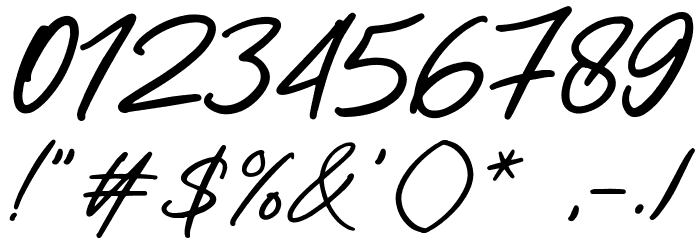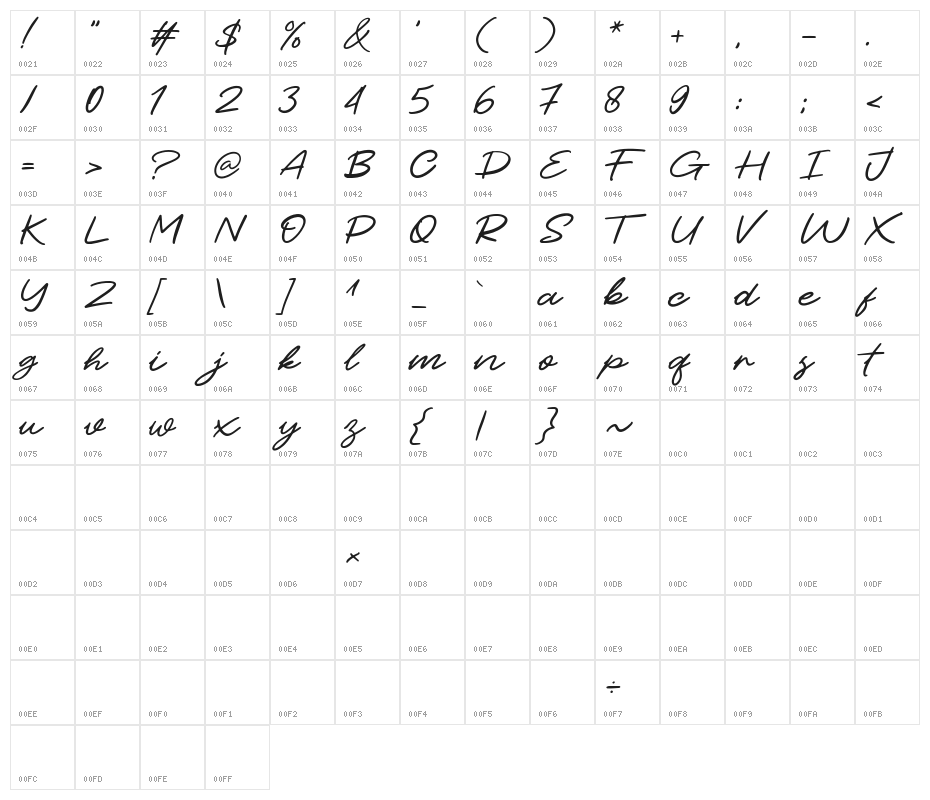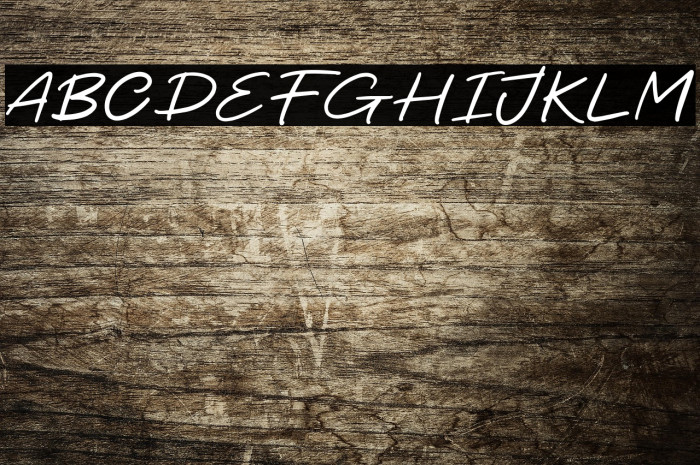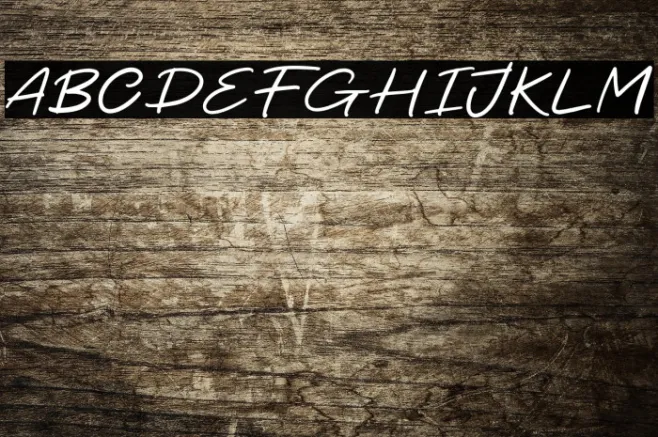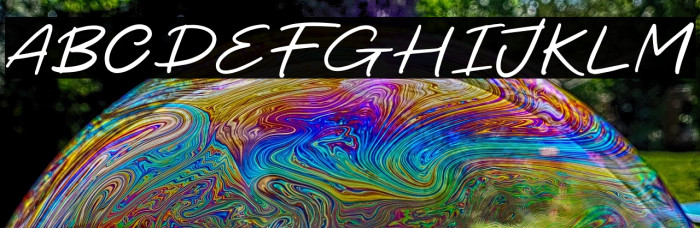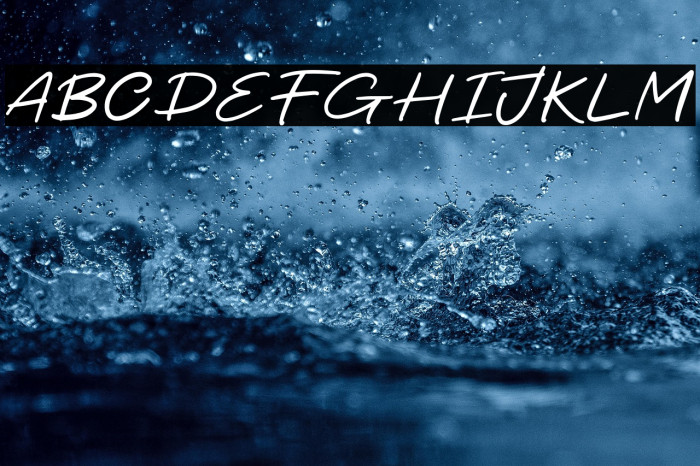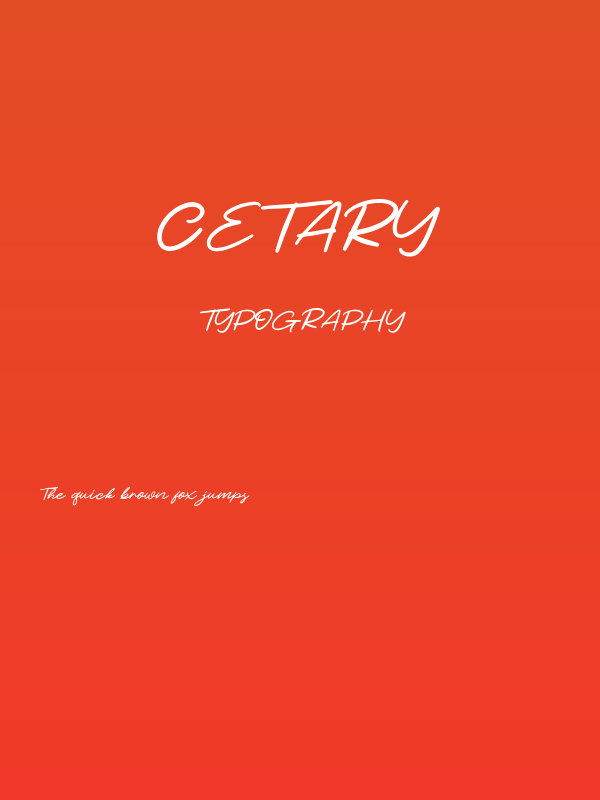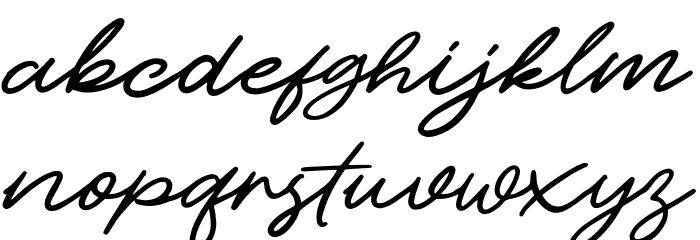
Cetary Font
Cetary Description
This font exudes a casual, handwritten style with a smooth, flowing script that mimics natural handwriting. The characters are slightly slanted, adding a dynamic and personal touch to the text. The uppercase letters maintain a consistent height, while the lowercase letters have a more varied baseline, enhancing the organic feel. The numerals are clear and legible, maintaining the same handwritten aesthetic. Special characters are well-integrated, complementing the overall style. This font is ideal for projects that require a personal, informal touch, such as invitations, greeting cards, or personal branding.
| Proposed Projects | Ideal for invitations, greeting cards, personal branding, and informal communications. |